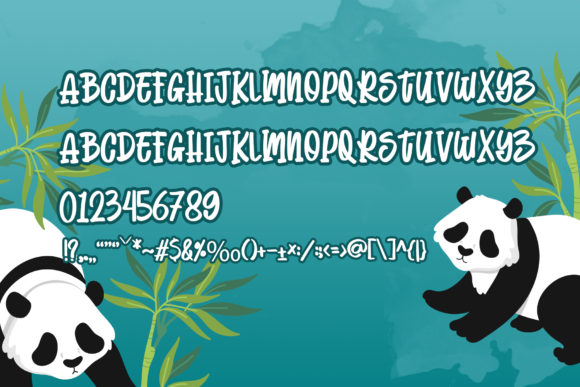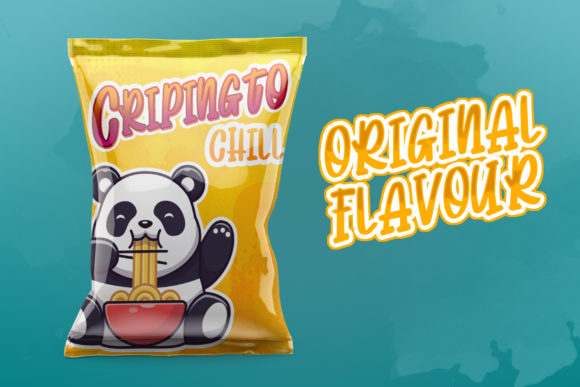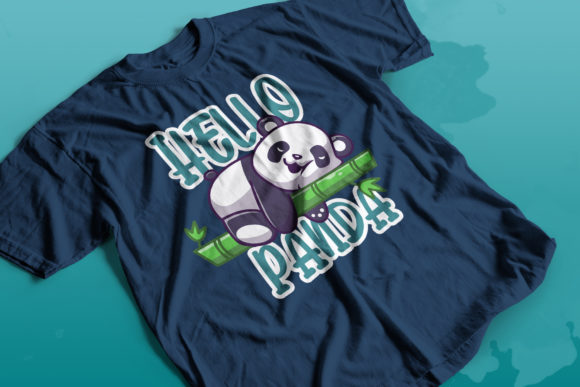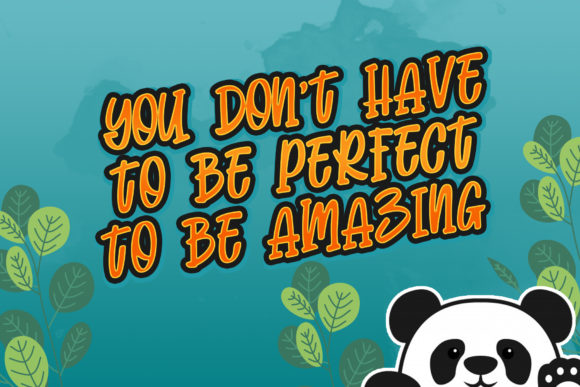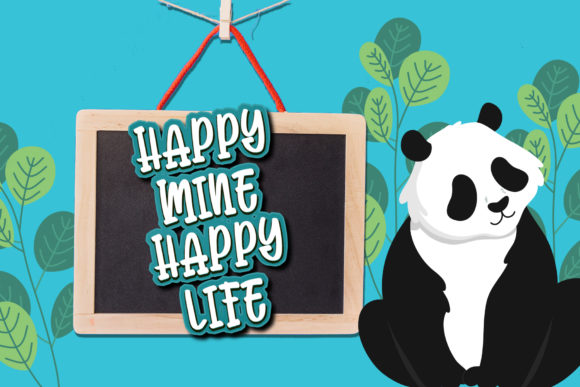
Introduction to Pandano Font
As a designer, there’s nothing quite like the rush of creativity that comes with bringing a new project to life. It’s the moment when all the elements come together, and you see your vision take shape. But sometimes, it’s that one little detail that can make all the difference. For me, it was when I stumbled upon the Pandano Font – a cute and friendly display font that adds an incredibly joyful touch to any design.
So, what sets the Pandano Font apart from other display fonts? Its unique charm and versatility make it a go-to choice for designers looking to add a personal touch to their work. In this article, we’ll explore the world of the Pandano Font and show you how it can elevate your designs to the next level.
Pandano Font
- Perfect design resource for graphic designers, artists, and anyone seeking a unique font for their project.
Honest Review: Pandano Font
I recently had the chance to try out the Pandano Font, and I must say, it’s been a game-changer for my creative projects. This free download is a fantastic design resource that’s perfect for anyone looking to add some flair to their work.
- ✨ High-quality design: The Pandano Font is meticulously crafted with intricate details and a unique aesthetic that sets it apart from other fonts.
- ✨ Versatility: This font is perfect for a wide range of creative projects, from logos and branding to digital art and graphic design.
- ⚠️ Limited character set: While the Pandano Font is extensive, it’s not as comprehensive as some other fonts on the market.
- ⚠️ Not suitable for all projects: Due to its unique style, the Pandano Font may not be the best choice for projects that require a more traditional or conservative approach.
Overall, I’m thoroughly impressed with the Pandano Font. Its high-quality design and versatility make it an excellent addition to any designer’s toolkit. While it may have some limitations, the benefits far outweigh the drawbacks, making it a must-have resource for any creative project.
The Pandano Font is a versatile design resource that can be used in a variety of creative projects, including:
– Social media graphics
– Brochures and flyers
– Posters and banners
– Business cards and letterheads